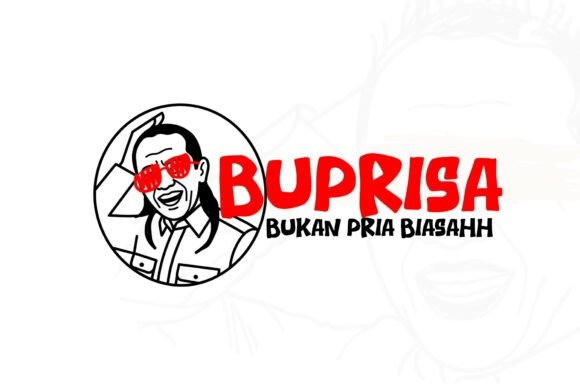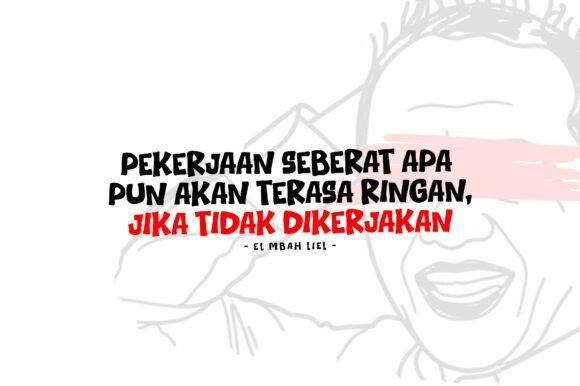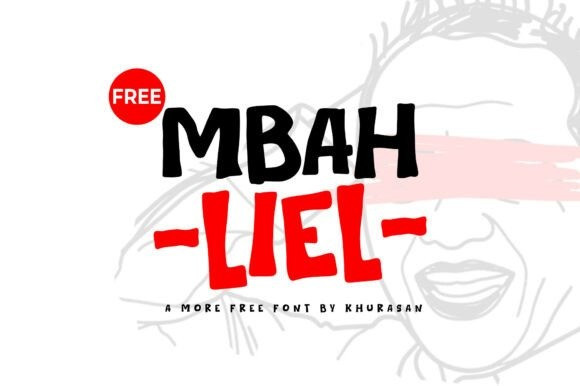
Mbah Liel Font
Mbah Liel Font – Add some serious “oomph” to your creative projects with Mbah Liel! This bold, hand-drawn display font is built for impact. With its thick strokes and tight letter spacing, it brings a loud, energetic, and slightly rebellious vibe—reminiscent of comic books and urban street art.